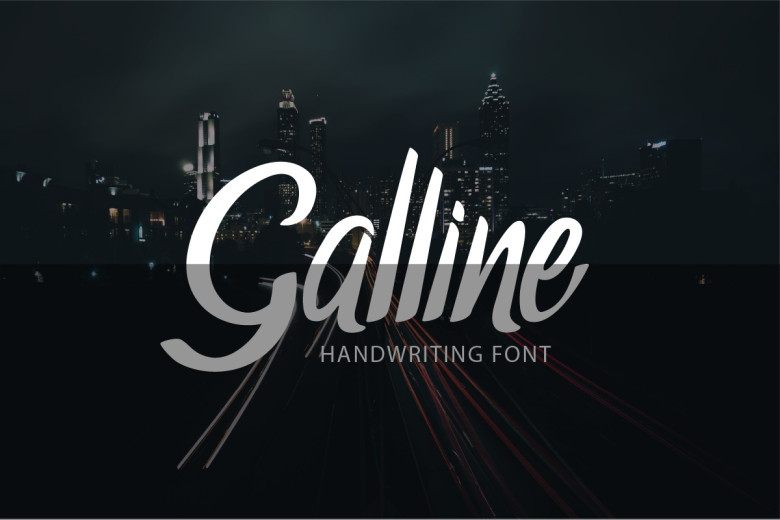
Galline Font
Galline is an elegant, soft, and fashionable written typeface, making it the perfect choice for wedding invitations, posters thank you cards as well as greeting cards, quotes logos invitations.
Galline Handwritten Font